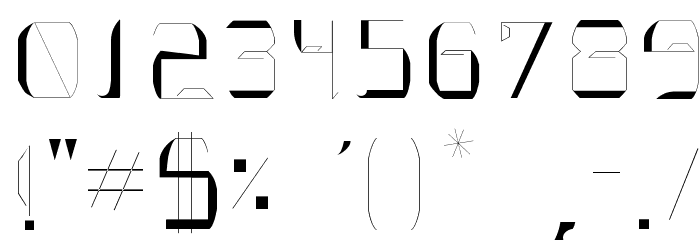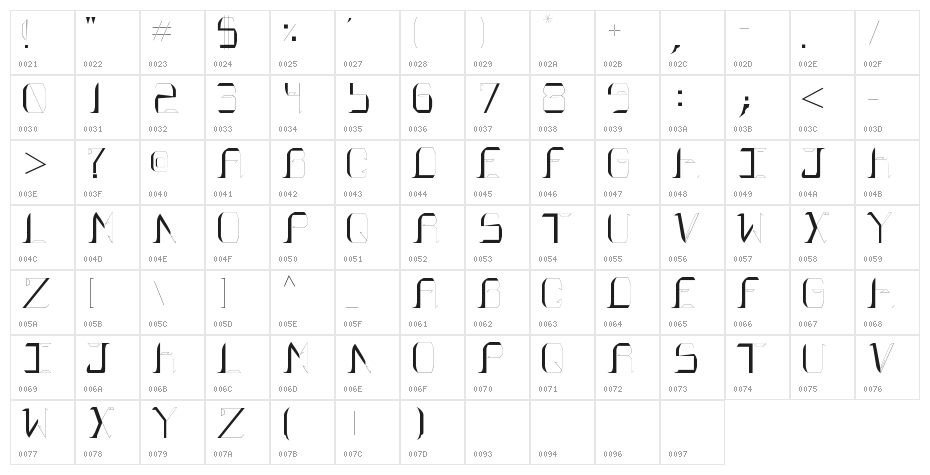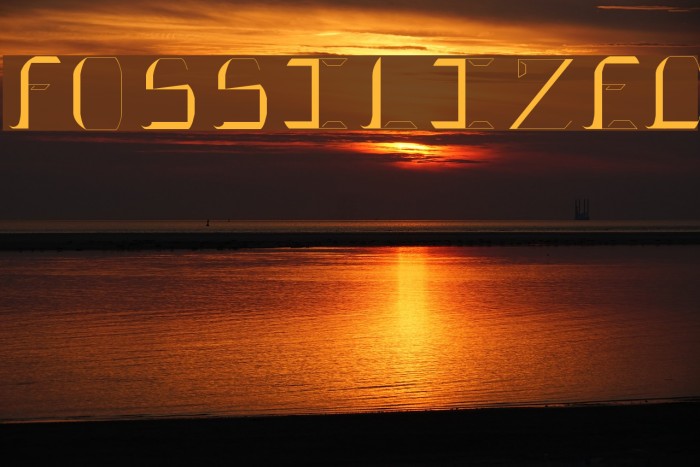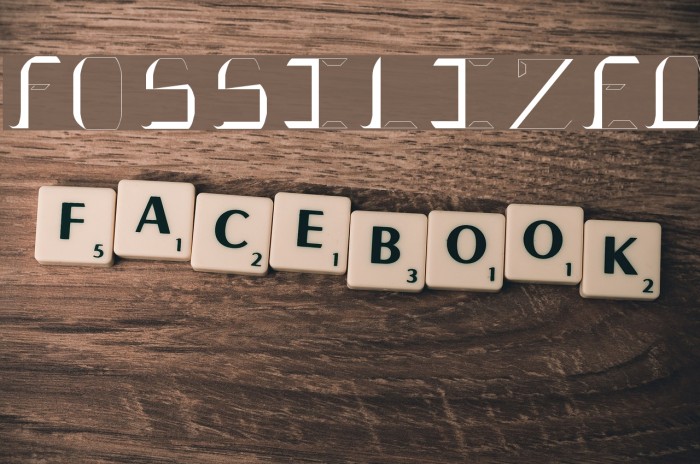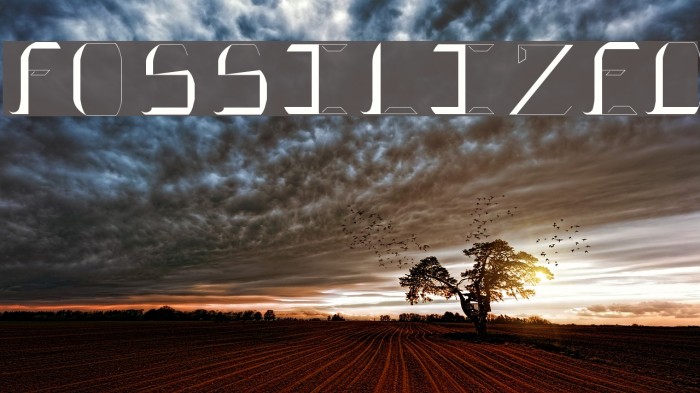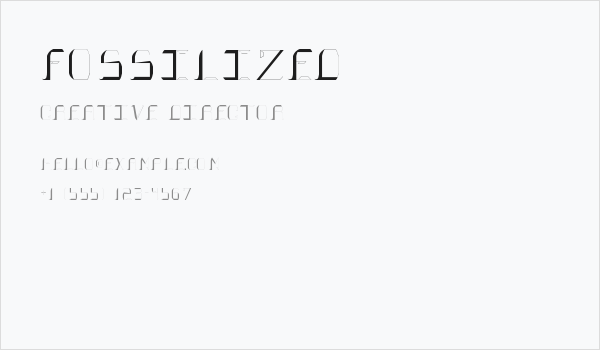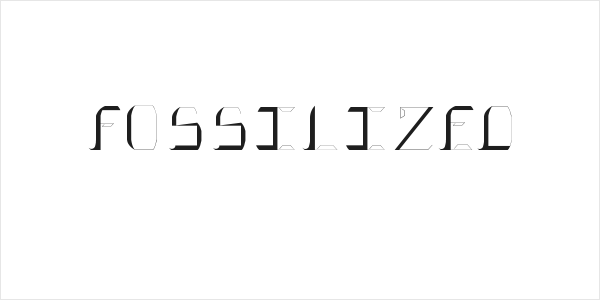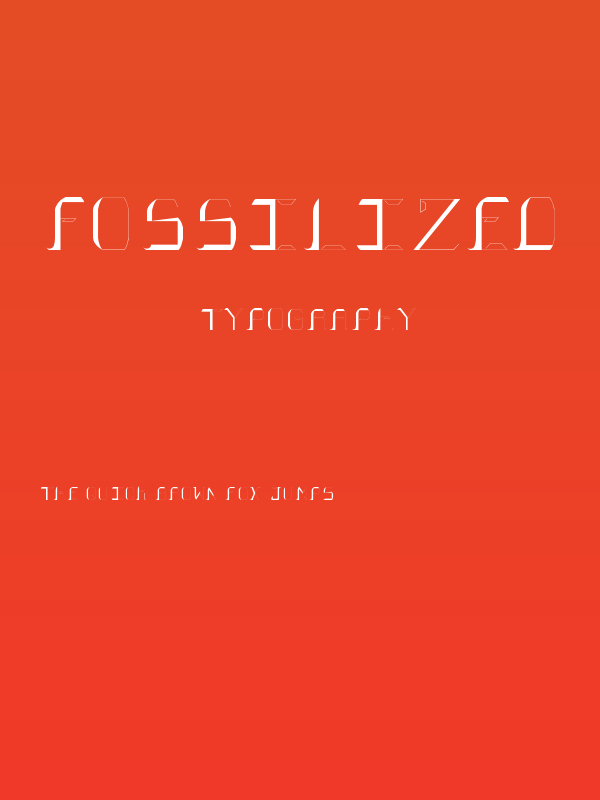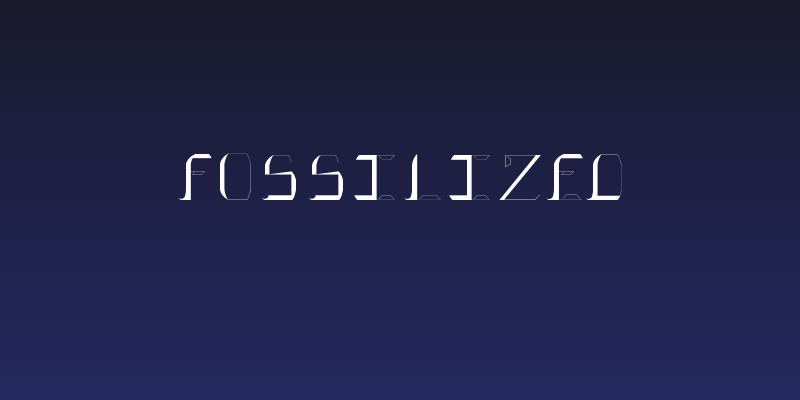
FOSSILIZED Font
FOSSILIZED Description
This font features a unique, geometric design with a futuristic and abstract aesthetic. The characters are constructed with a combination of solid black and outlined segments, creating a sense of depth and dimension. The uppercase and lowercase letters maintain a consistent style, with angular shapes and sharp edges. Numbers and special characters follow the same design principles, ensuring uniformity across the font. The overall appearance is modern and innovative, making it suitable for creative and tech-oriented projects.
| Proposed Projects | Ideal for tech branding, sci-fi movie posters, video game titles, and innovative product packaging. |